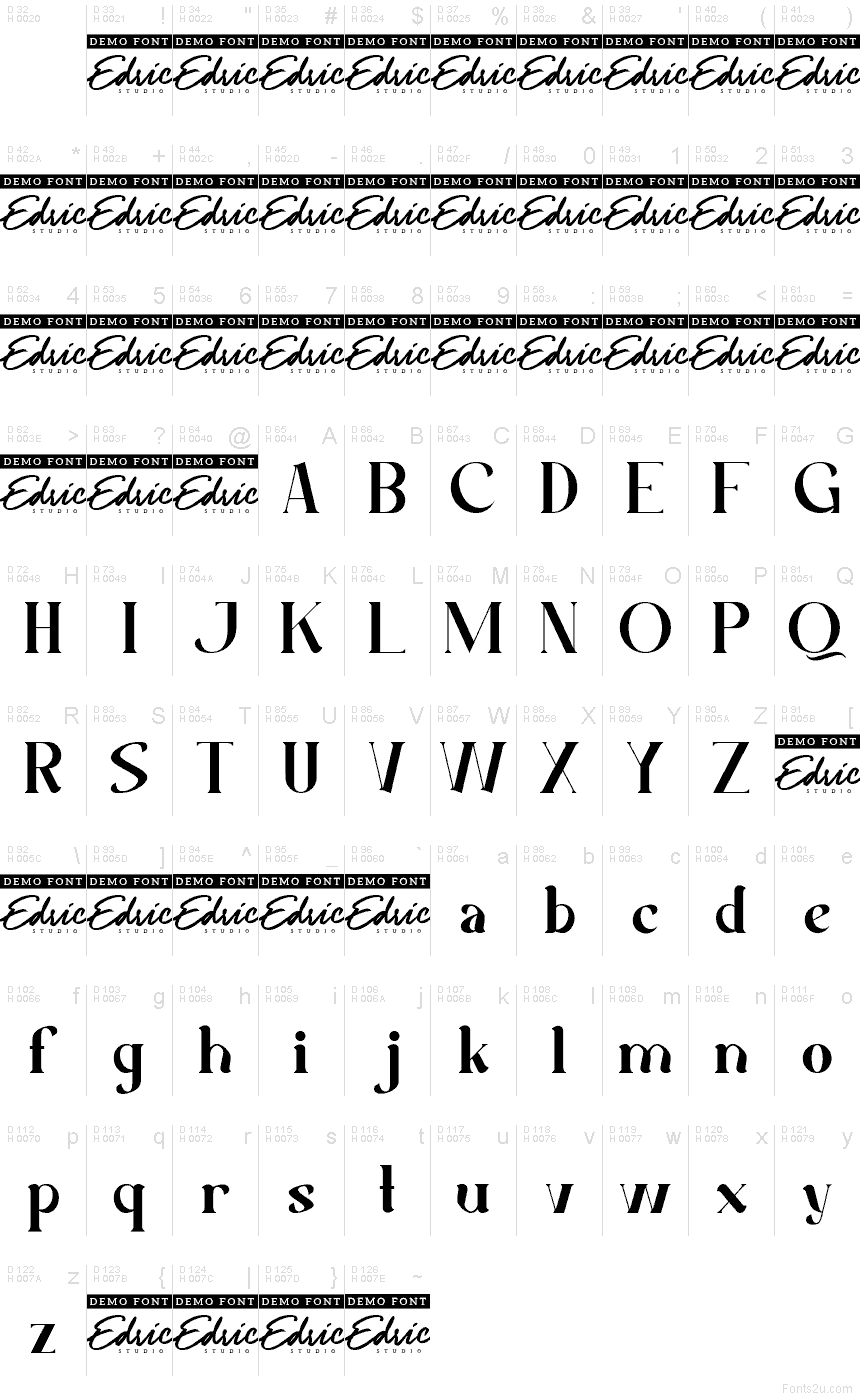
Goldy Ryder Demo
Goldy Ryder font by Edric Studio is an elegant and sophisticated serif typeface. Designed with classic inspiration, it combines traditional elements with a modern touch for a refined aesthetic. The font's contrasting lines create visual interest in every letterform.
This free serif font blends beautifully in branding projects, logo design, packaging, poster design, social media imagery, advertising campaigns, headings and subheadings. Goldy Ryder also works well in web layouts and print materials like magazines and newspapers.